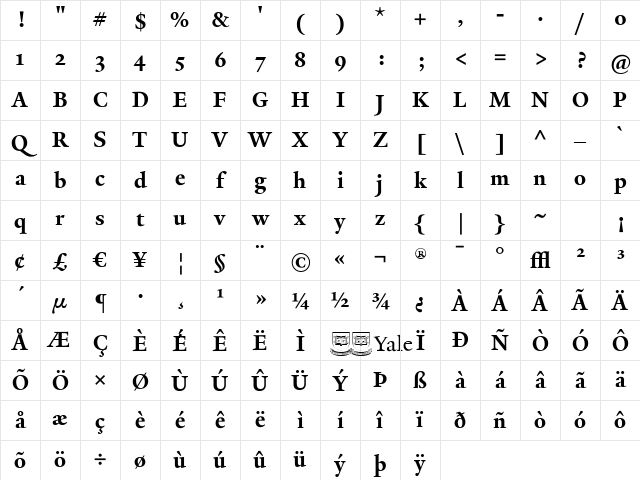
Complete YaleDesign Bold glyph index. Displaying only characters natively supported by YaleDesign Bold font.
YaleDesign is a composed and adaptable typeface that performs quietly and consistently across a wide range of design contexts. Its bold stroke weight gives it real presence on the page.